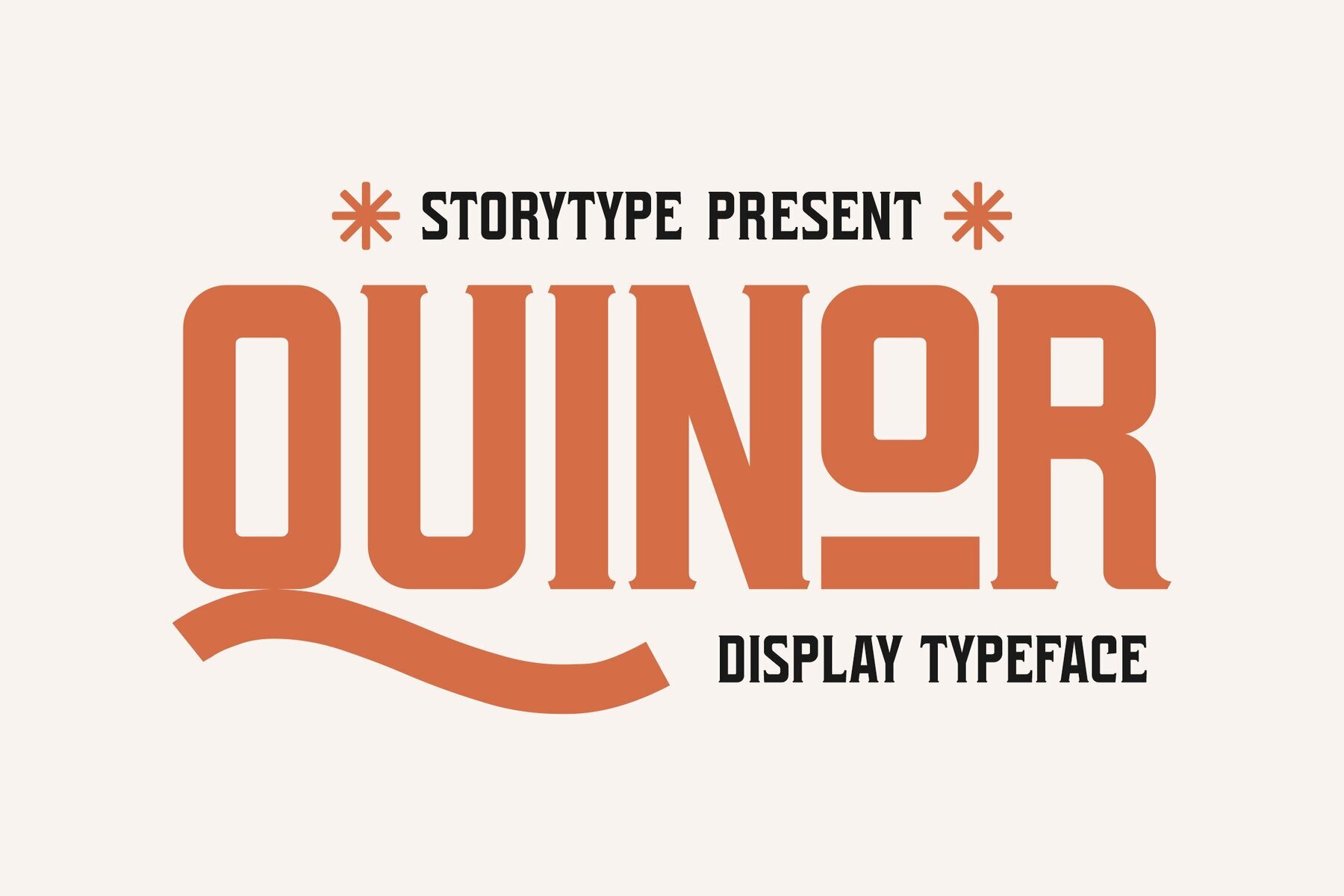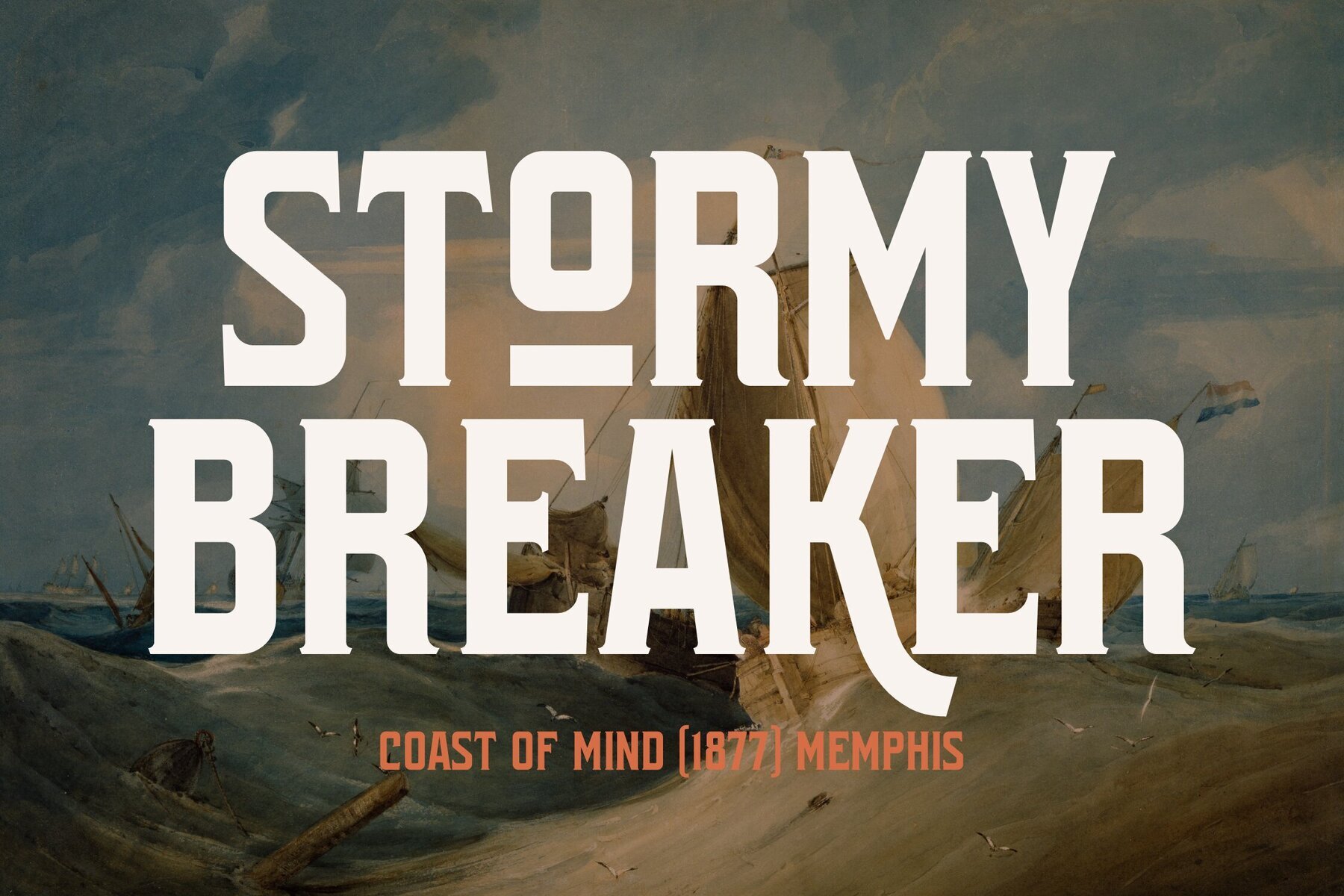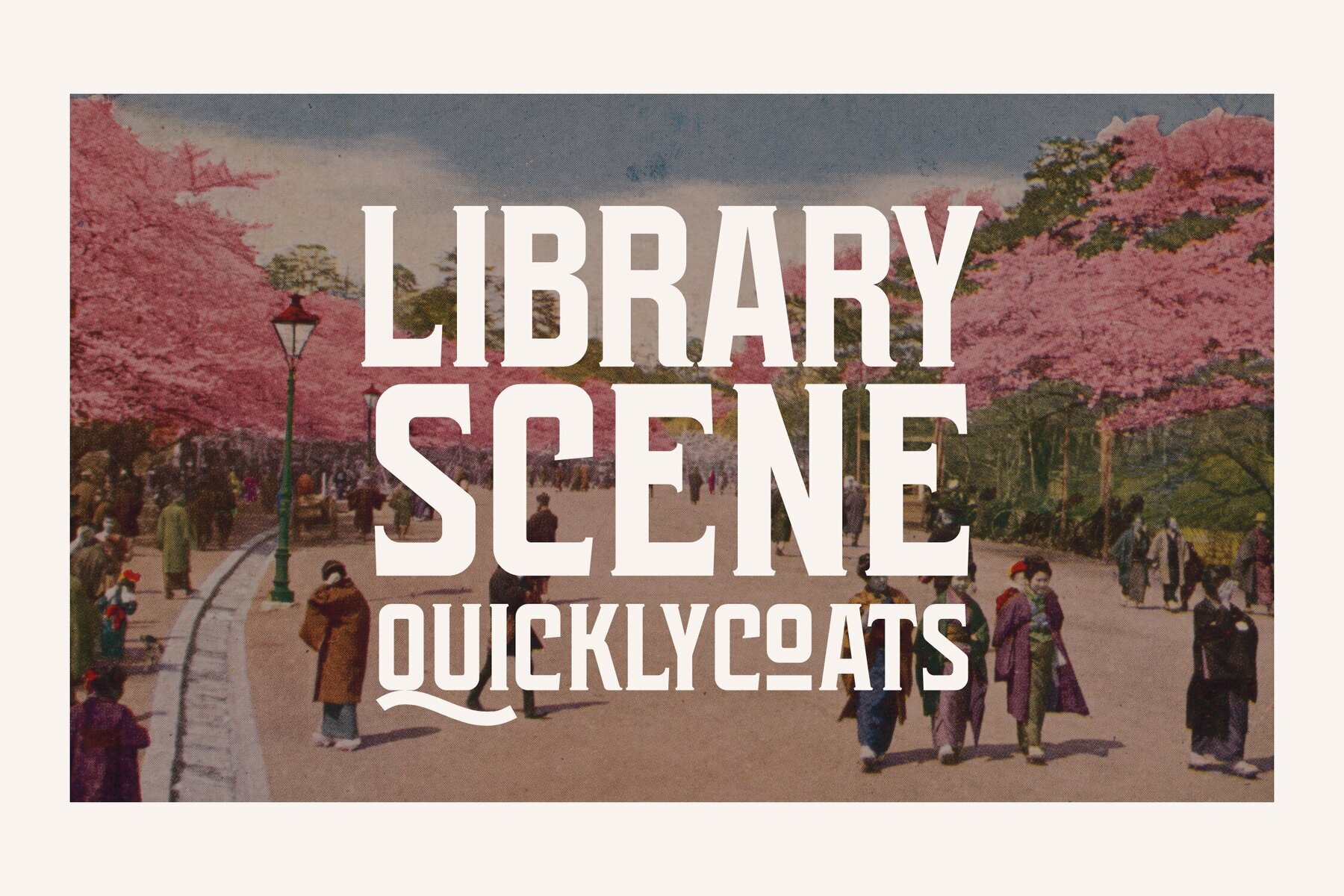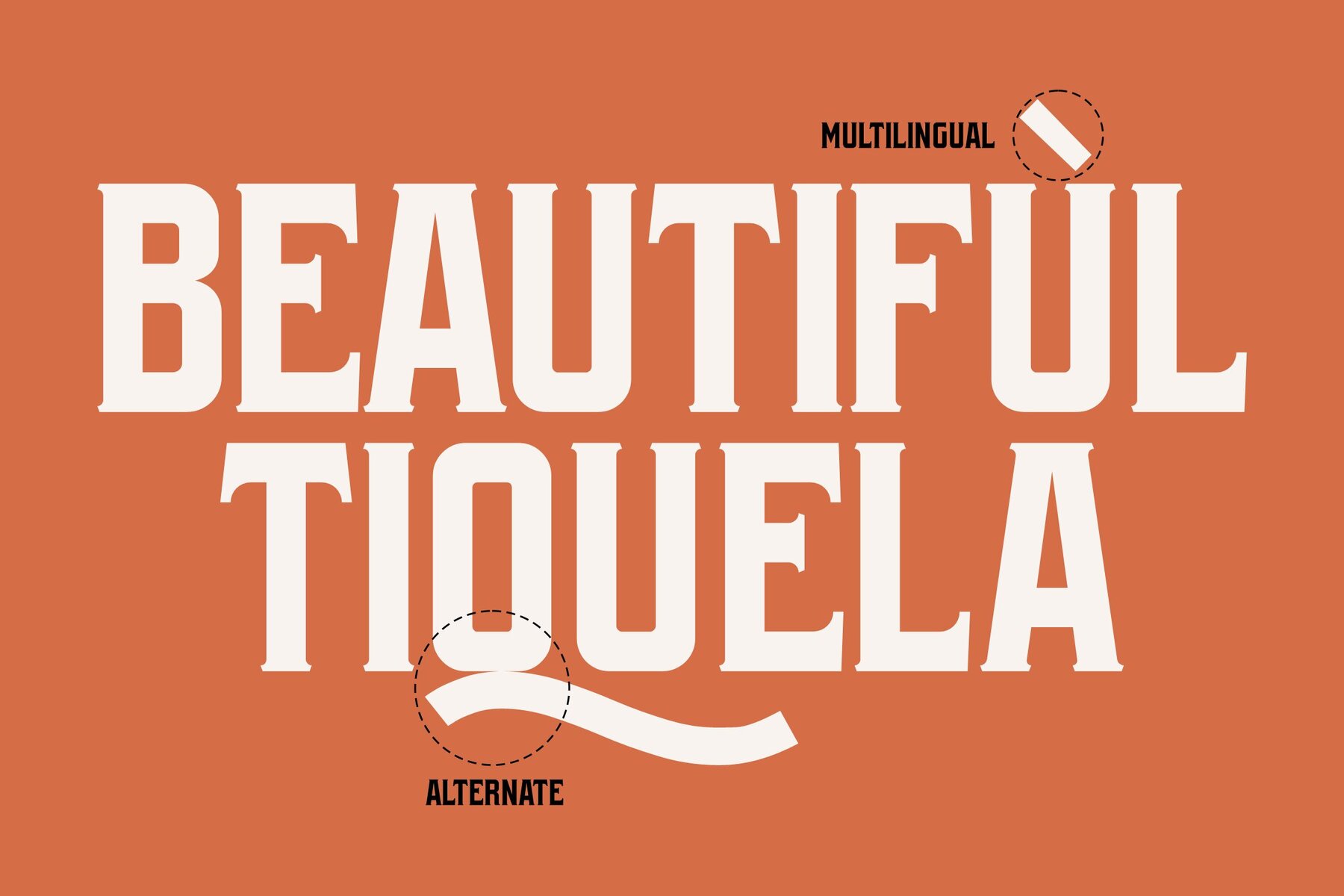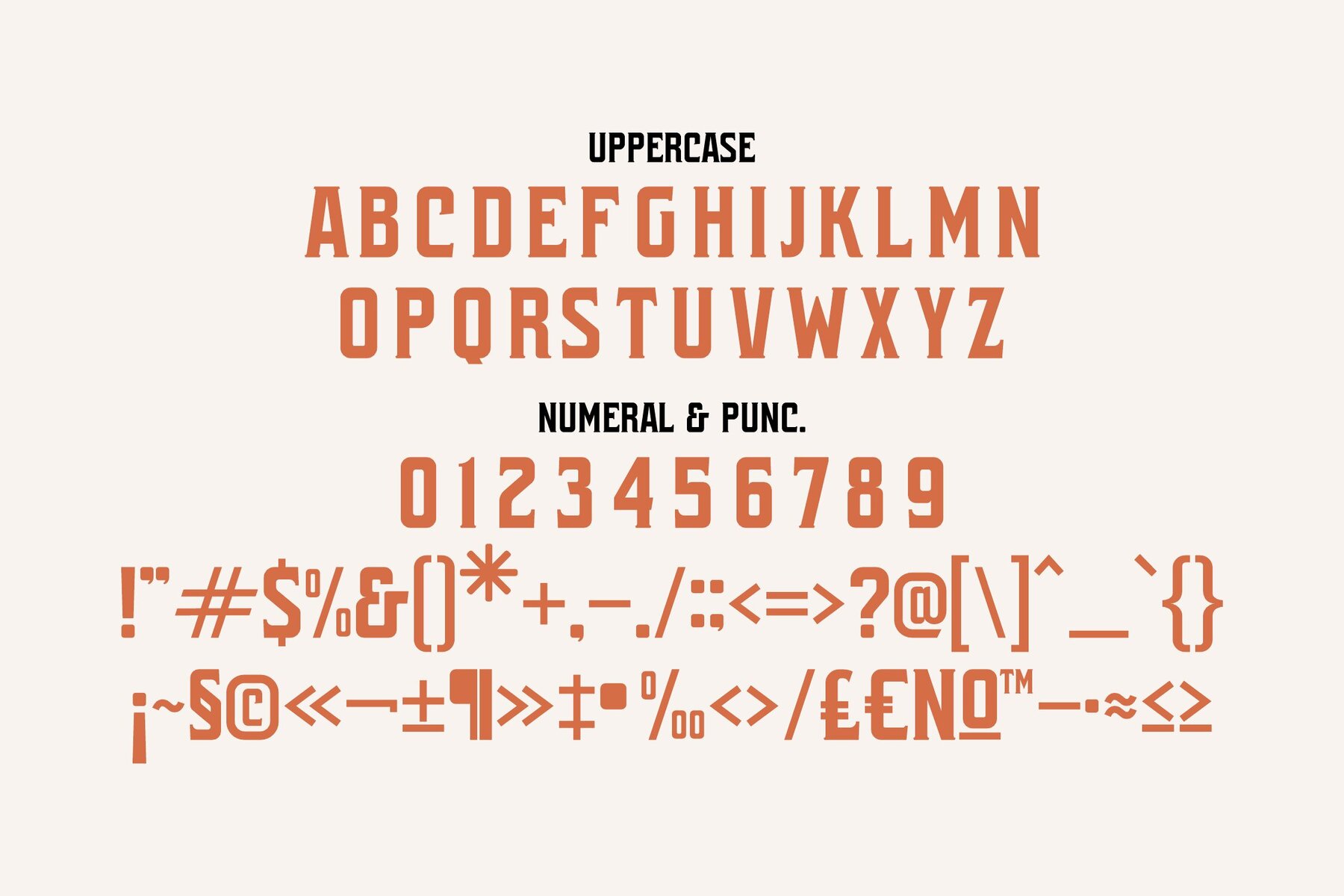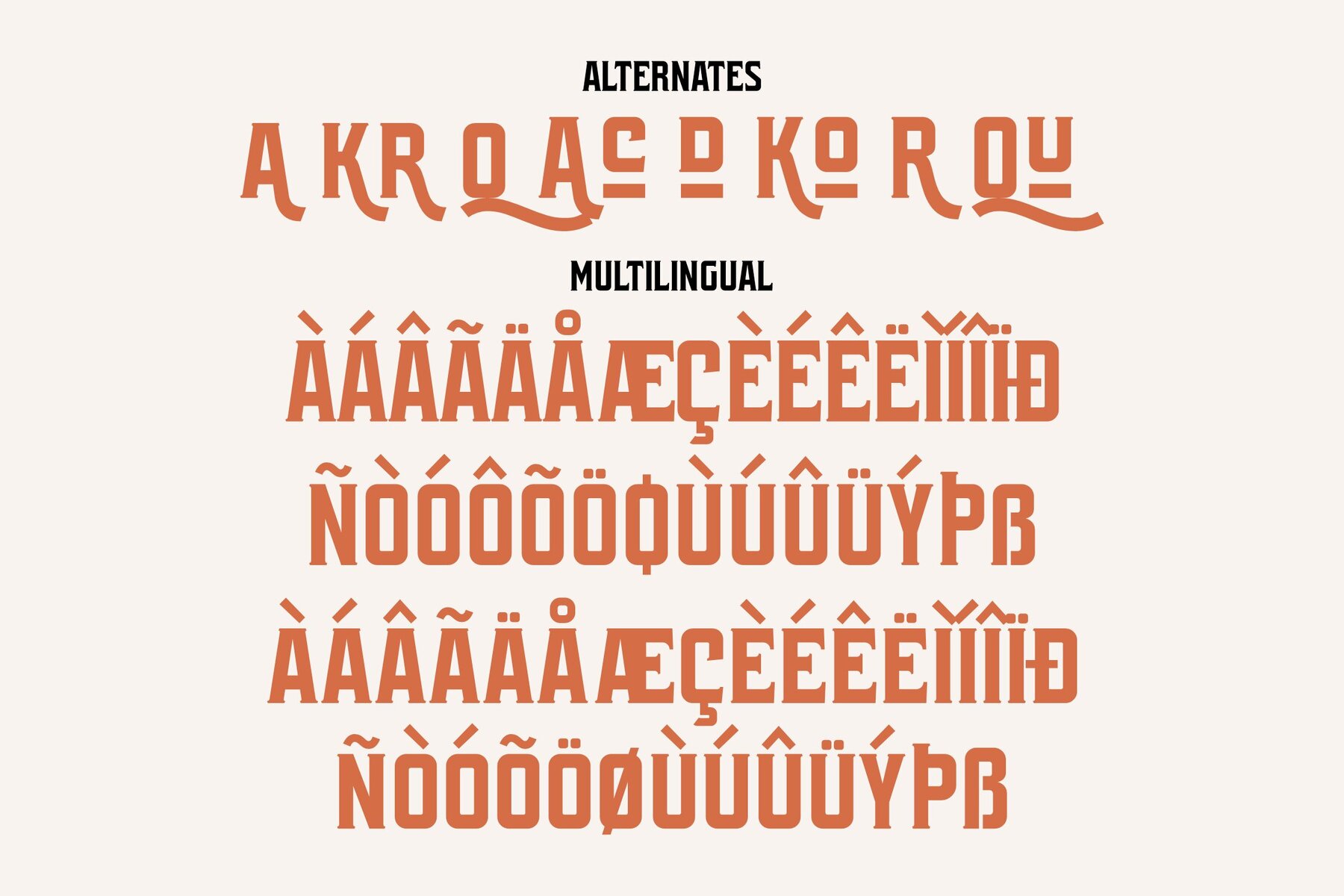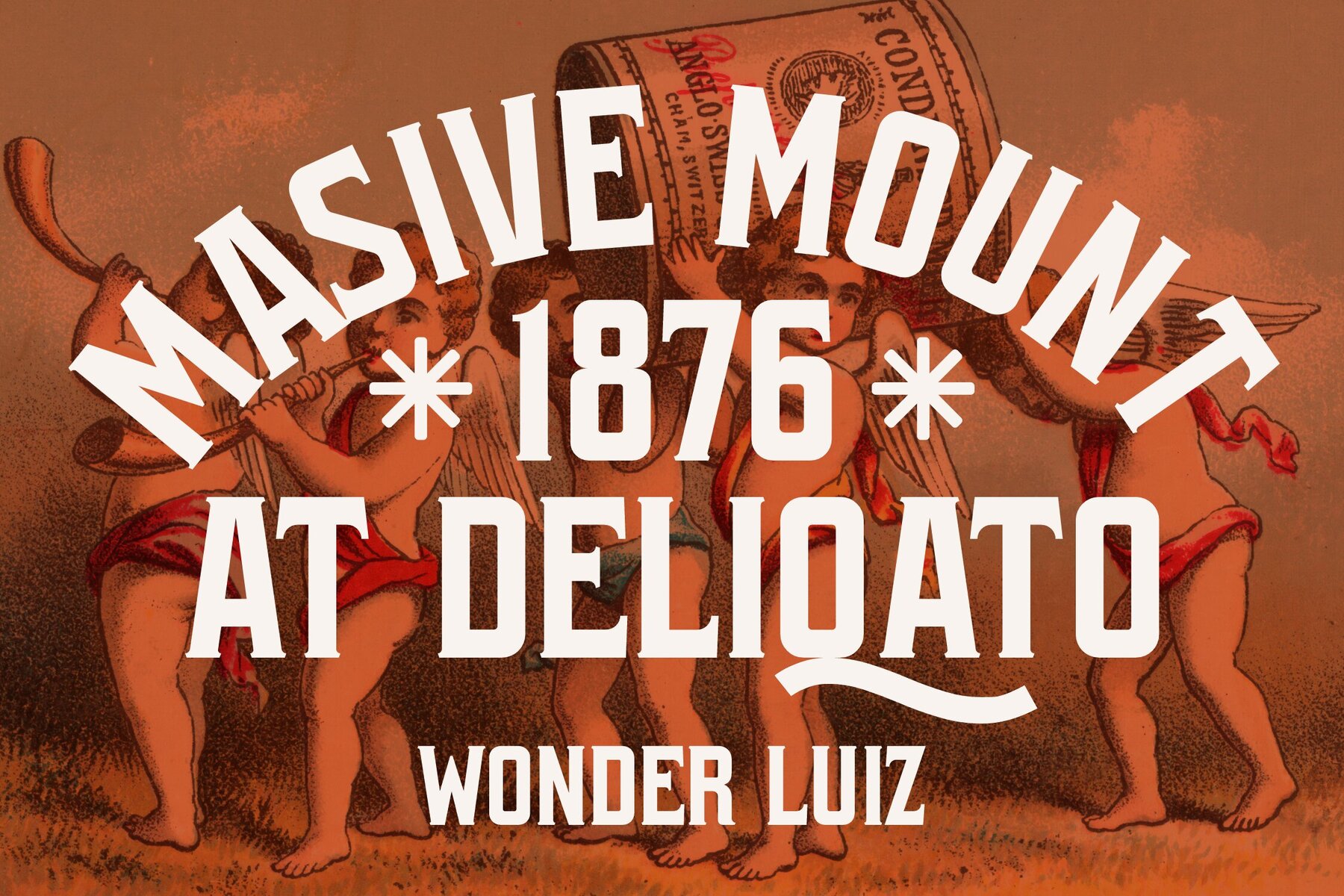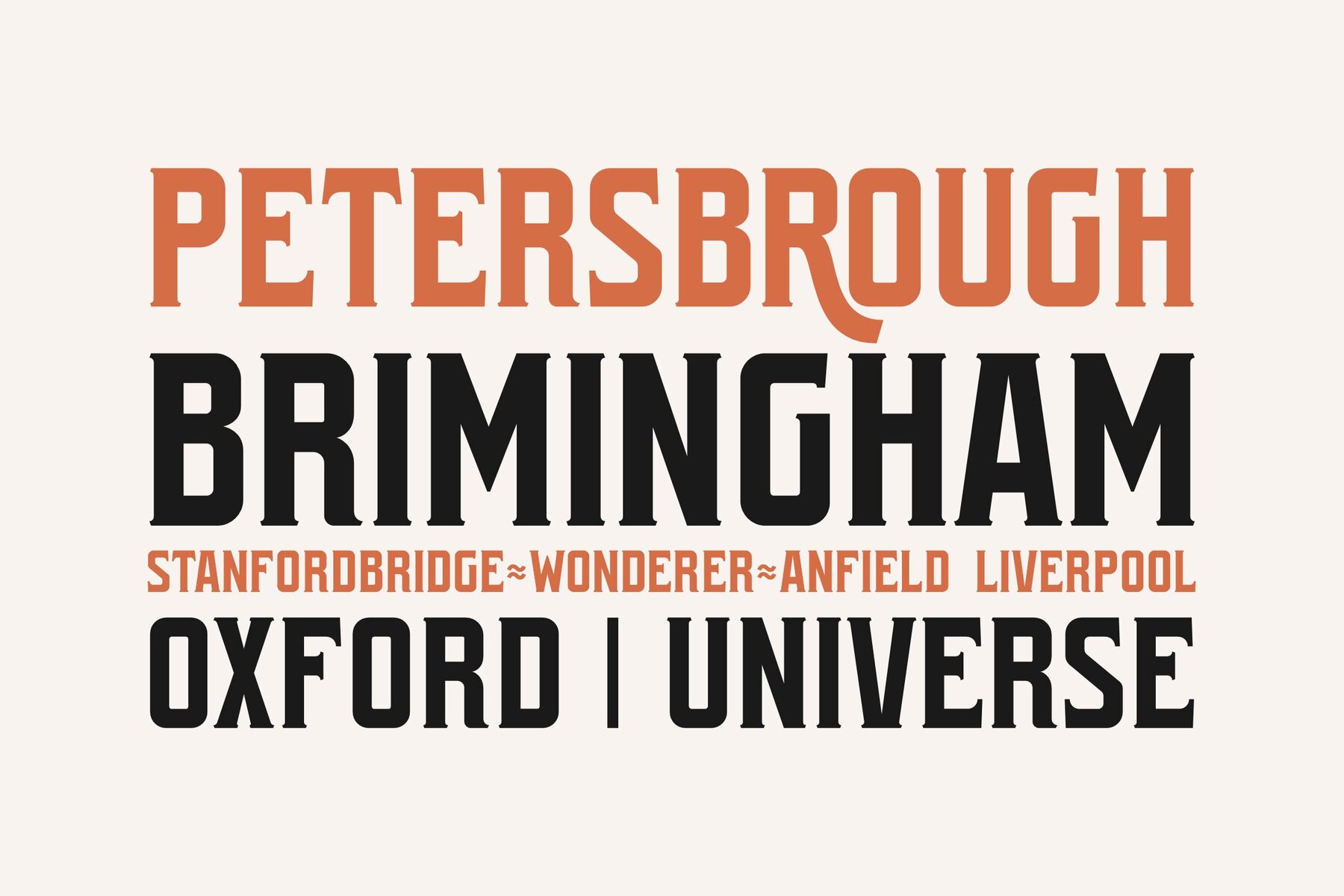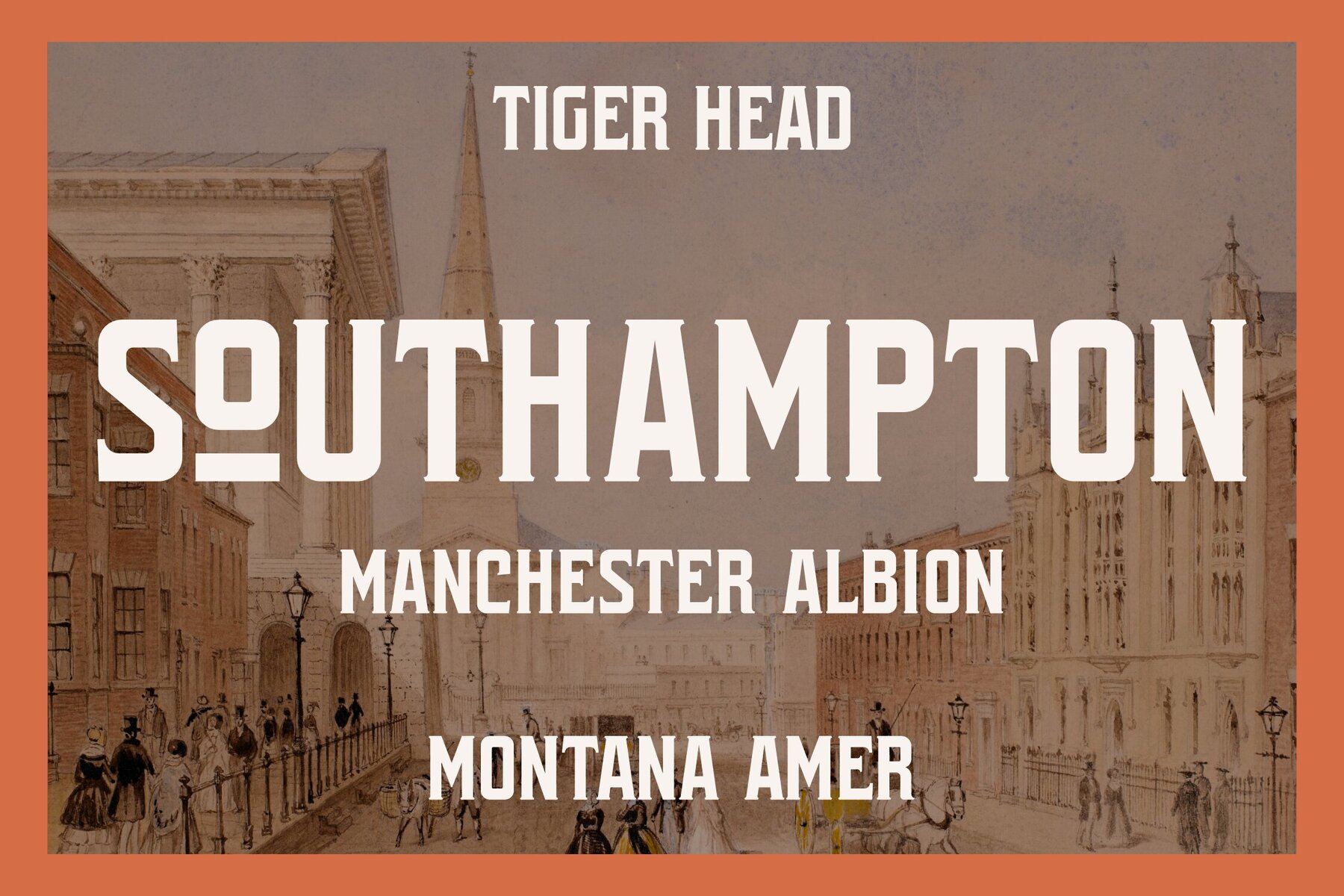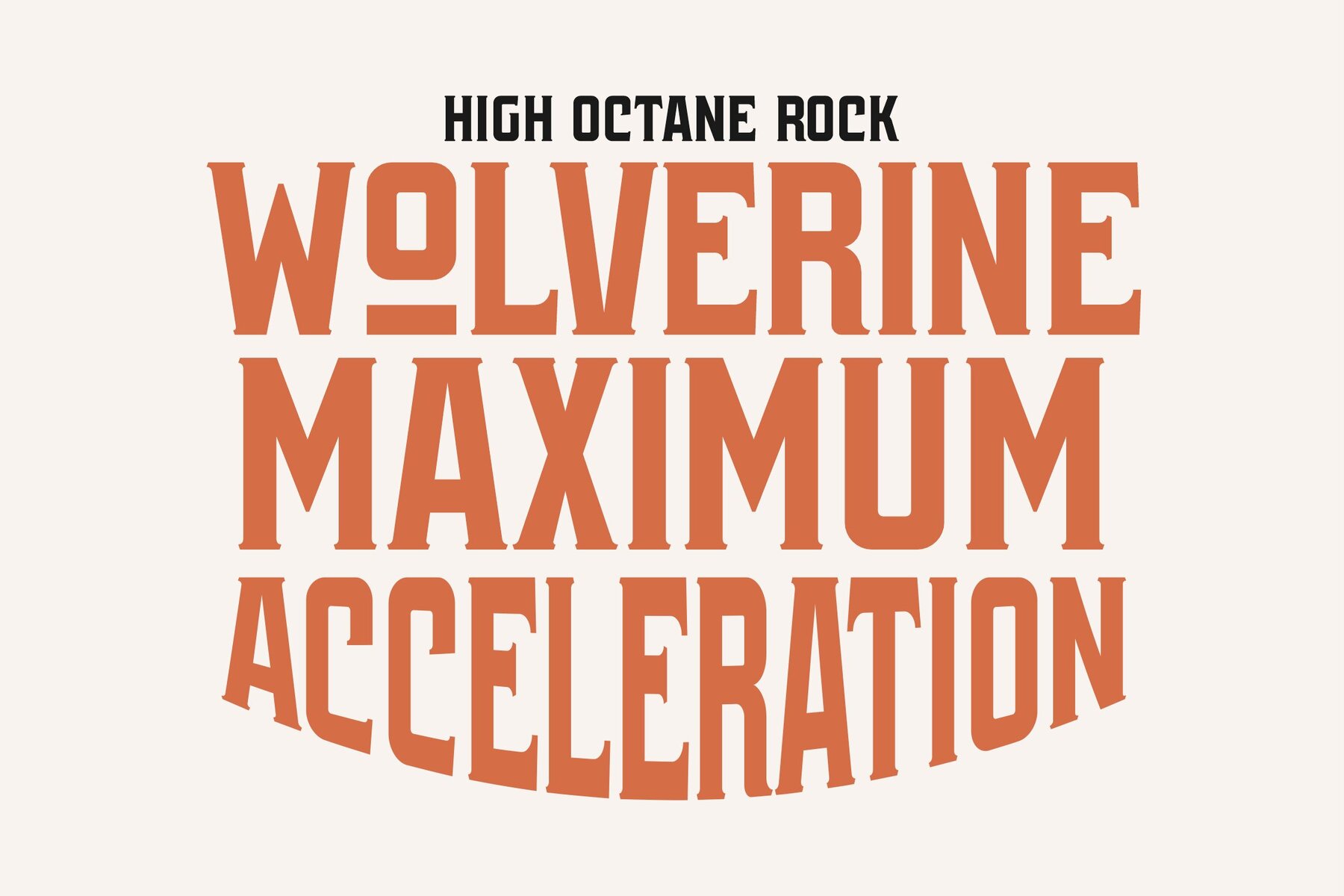
QUINOR Font
Quinor Typeface offers a unique style with a modern look, crafted for those who appreciate the subtle balance between traditional elegance and contemporary design. This serif font is ideal for a variety of projects, including luxury logos, book or movie titles, fashion branding, magazines, and much more. Its versatility ensures it complements both written content and visual media seamlessly.Quinor Typeface: A Blend of Modern and Classic Serif